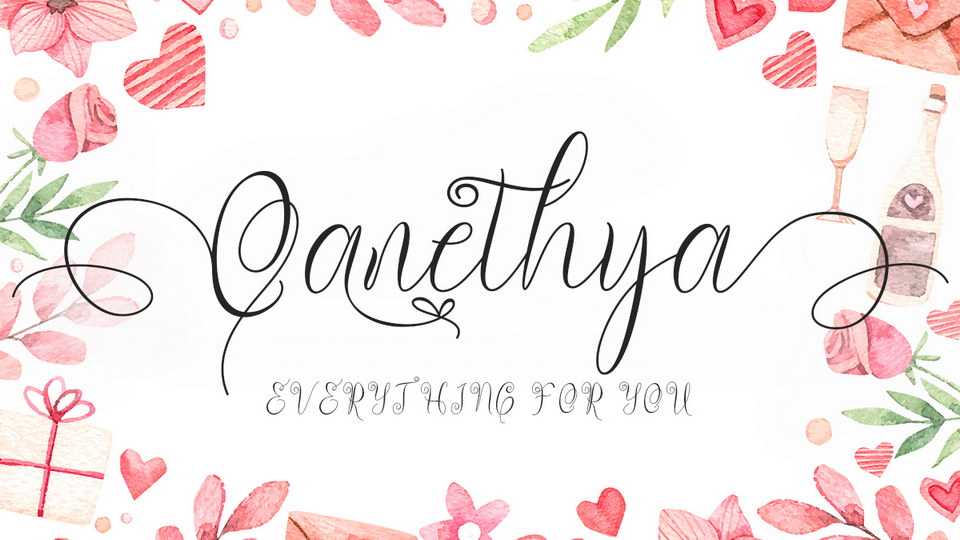
Download Qanethya font, a modern handwritten typeface that is made with a subtle touch resulting in a high quality look. Qanethya font is very beautiful and elegant which is suitable for all kinds of your work.